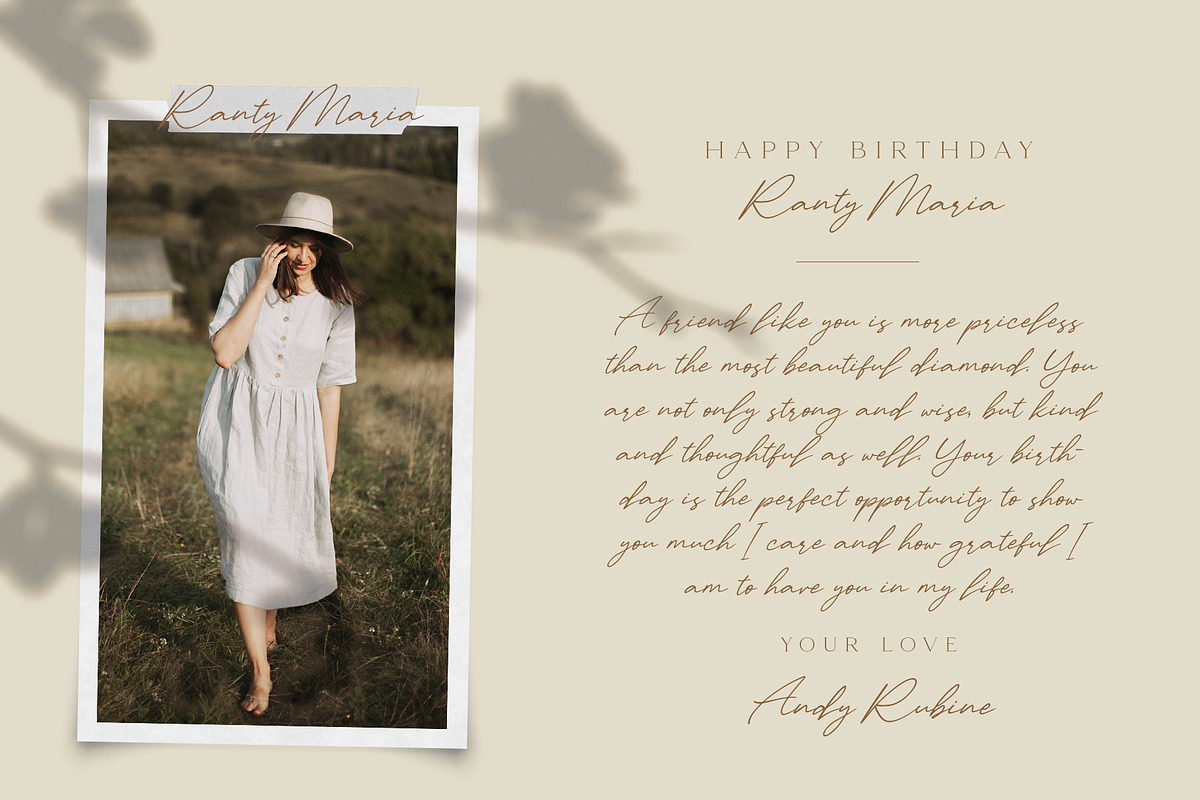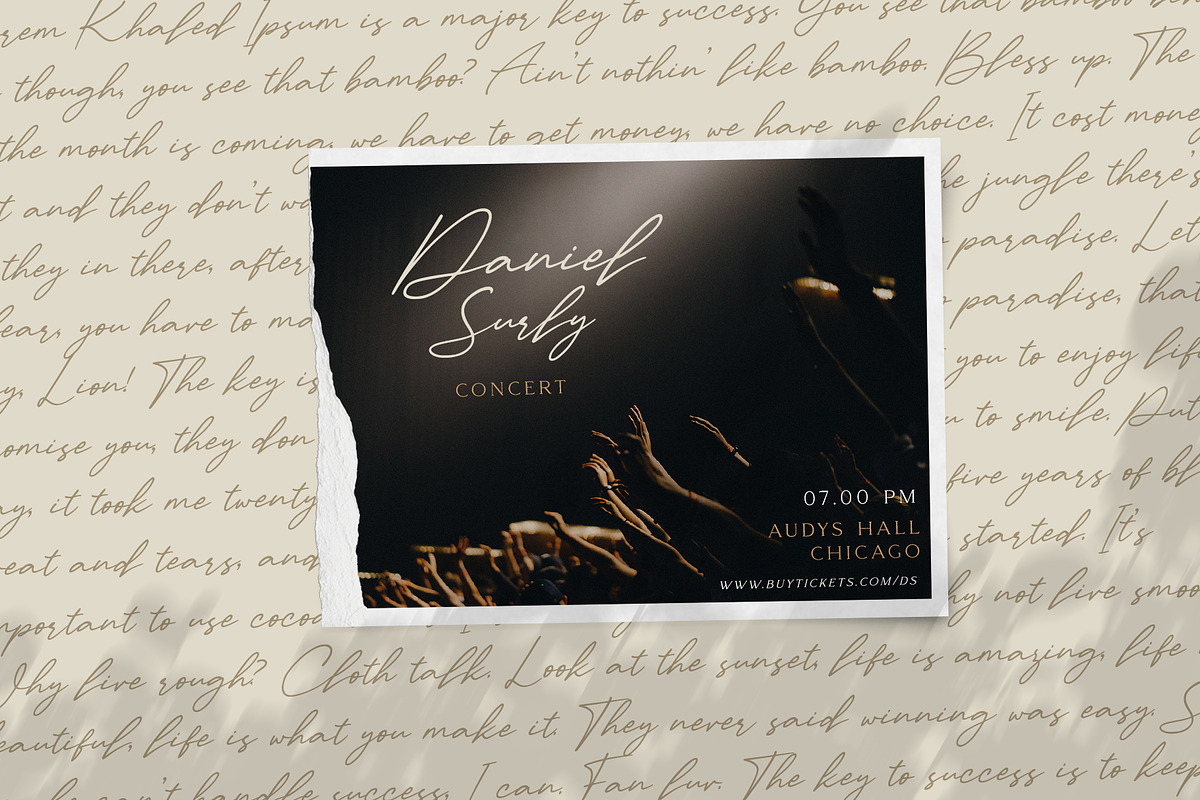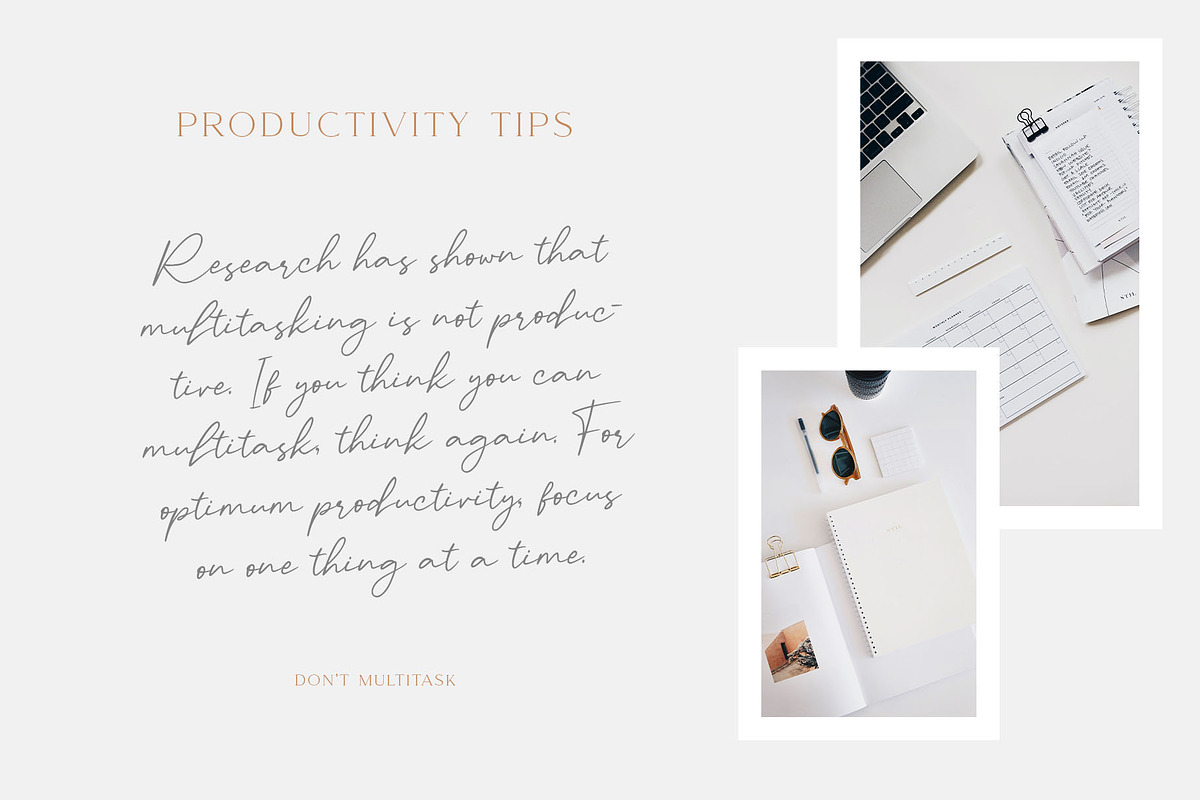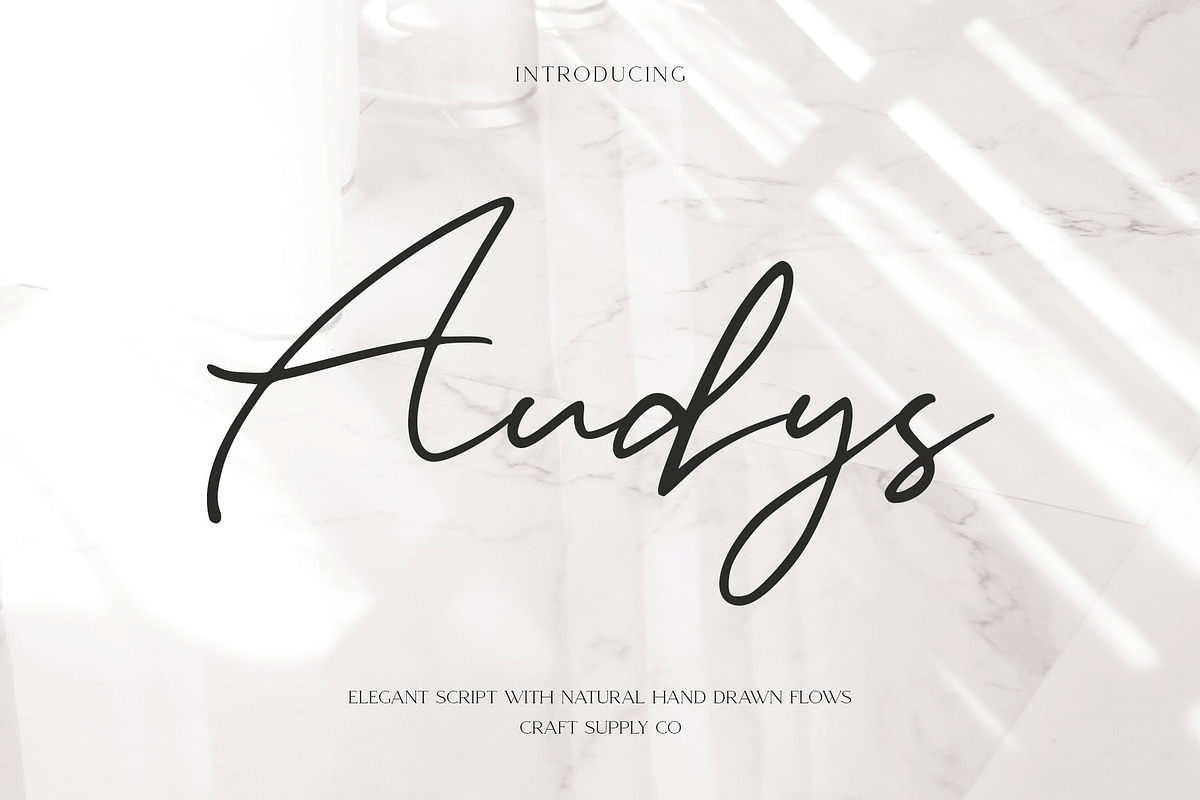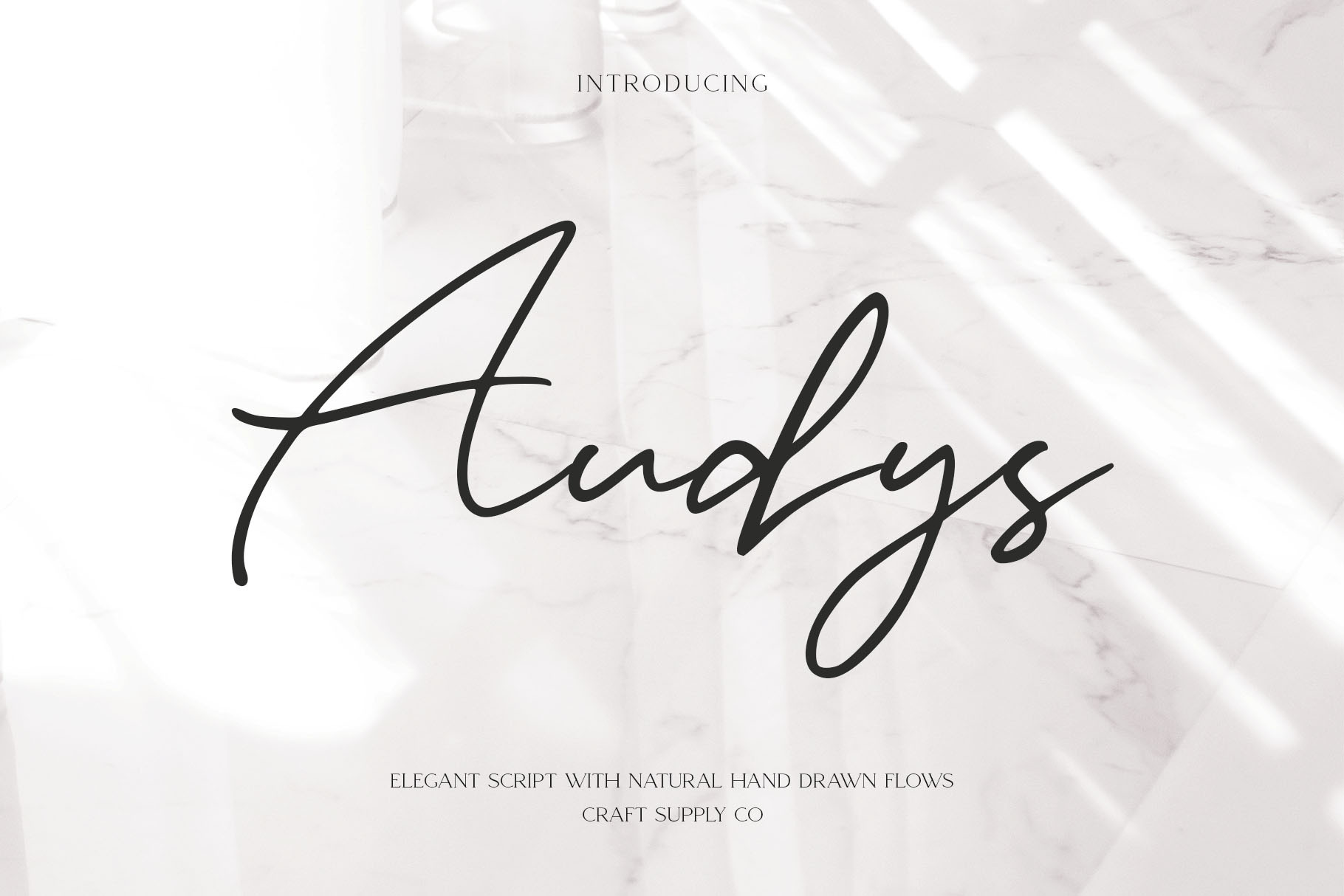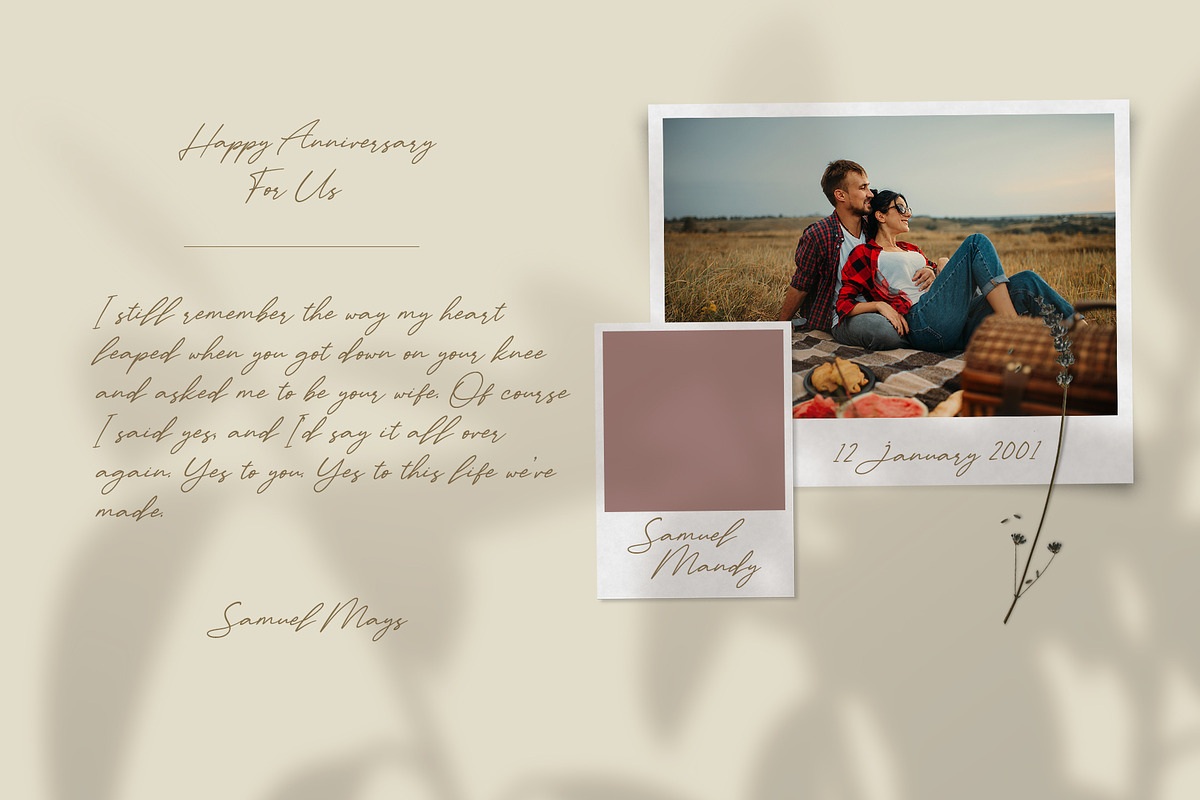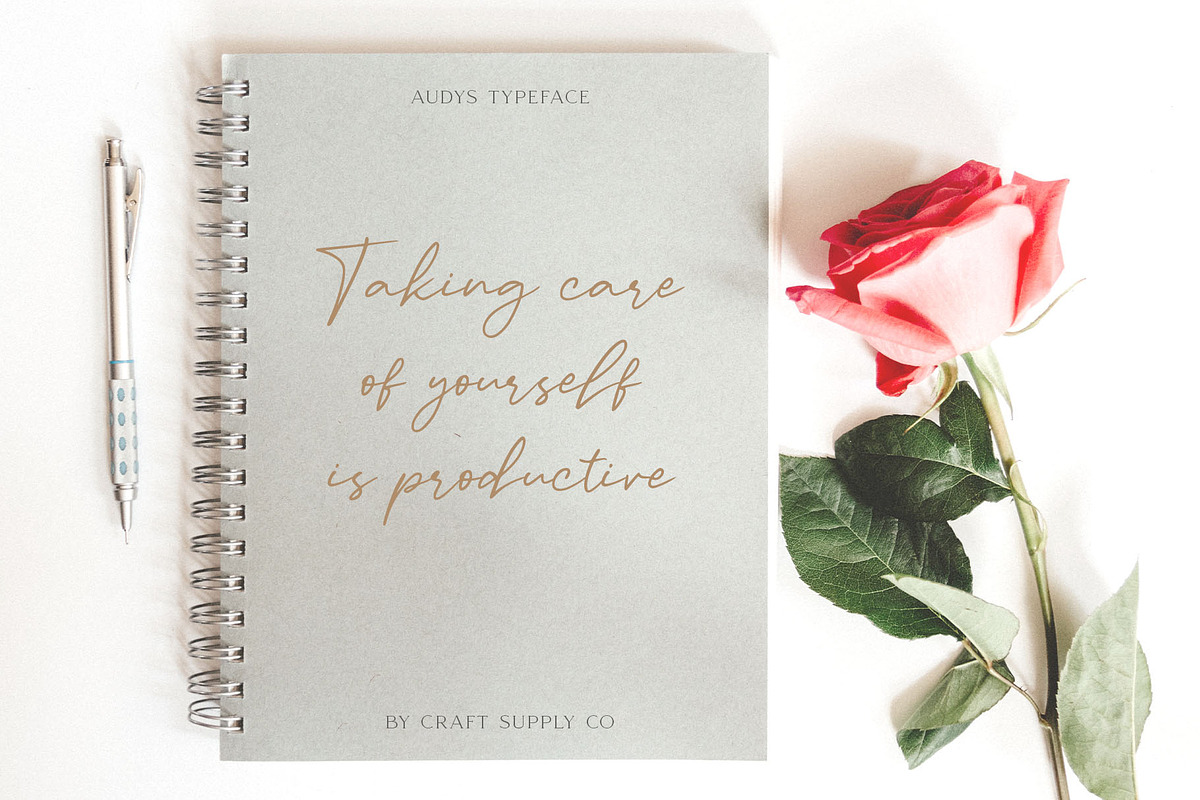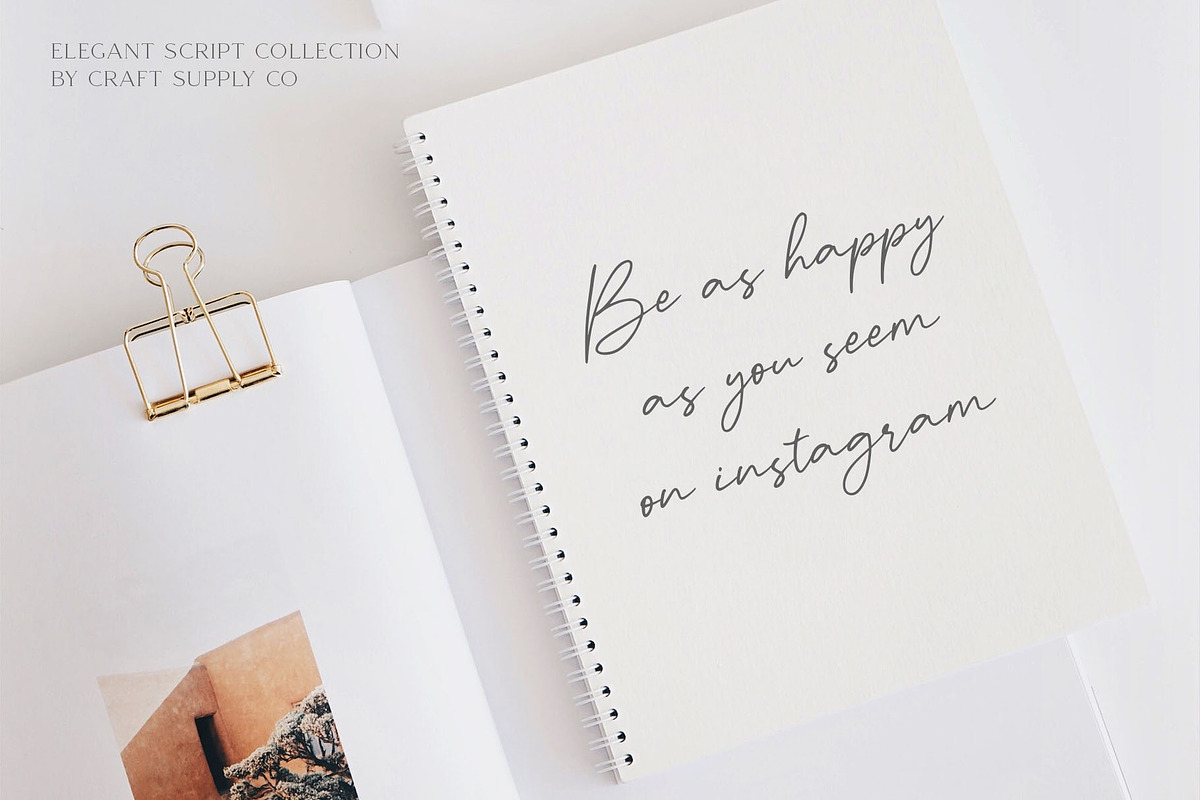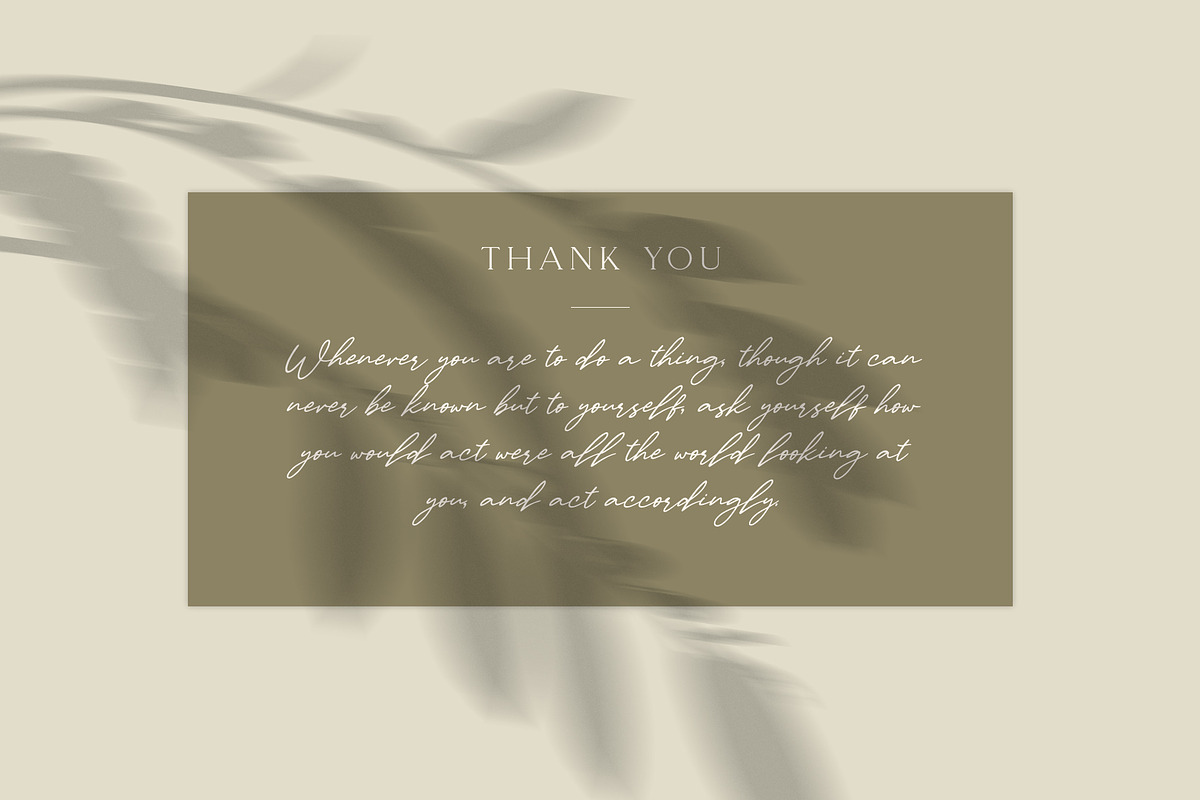
Audys - Elegant Script Font
Introducing New Font : Audys - Elegant Script Font
Audys - Elegant Script Font is an handwritten script font based on the expression of real handwriting. Audys - Elegant Script Font will work perfectly for fashion, e-commerce brands, trend blogs, wedding boutiques or any business that wants to appear upscale and chic.
Audys - Elegant Script Font also Suitable for Logo, greeting cards, quotes, posters, branding, name card, stationary, design title, blog header, art quote, typography, art, modern envelope lettering or book design, happening style like handdrawn design or watercolor design theme, craft design, any DIY project, book title, or any purpose to make your art/design project look pretty and trendy.
- Accents/Multilingual characters (AÀÁÂÃÄÅCÇDÐEÈÉÊËIÌÍÎÏNÑOØÒÓÔÕÖUÙÜÚÛWYÝŸỲŸÆŒßÞ)